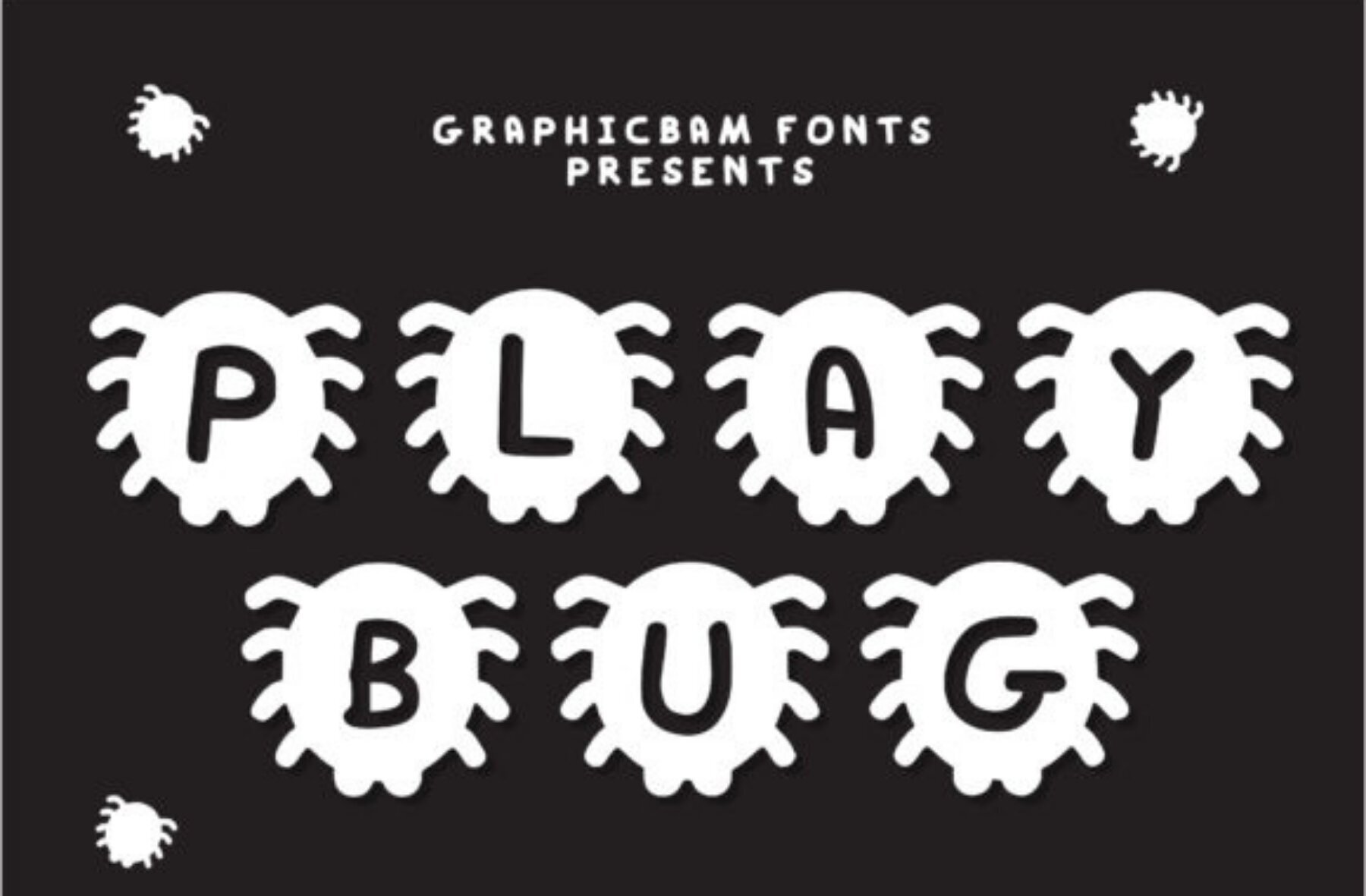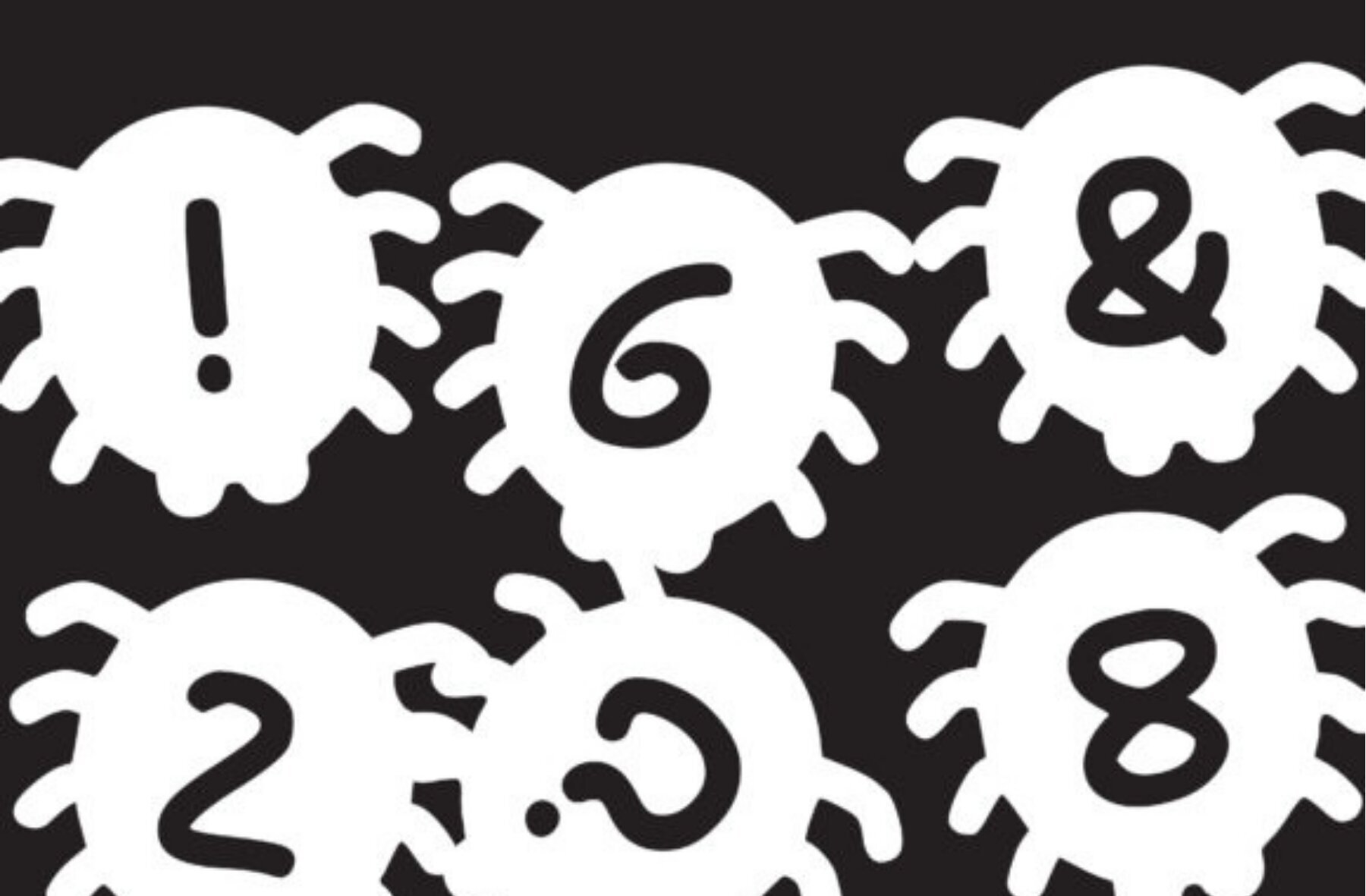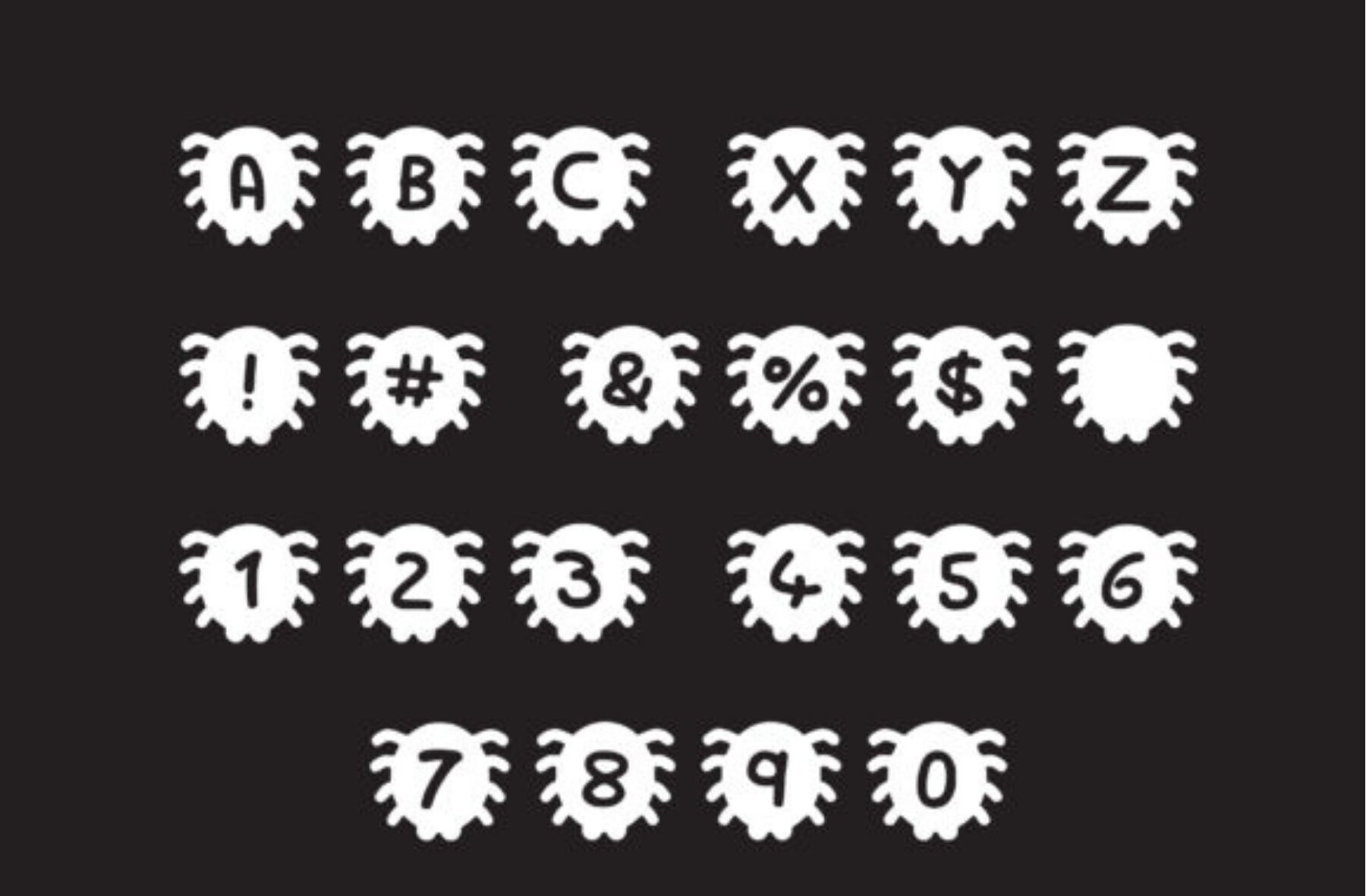
Play Bug Font
Play Bug Regular
Delight in the charm of Play Bug, a distinctive decorative font infused with a whimsical aesthetic. Perfect for children's activities and school projects, it brings a playful, child-like vibe to any design.Play Bug: Whimsical Decorative Font